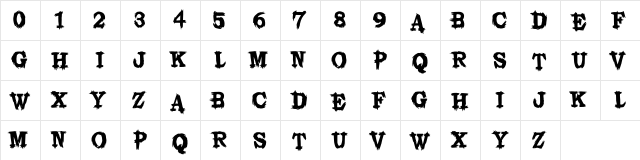
HORIZONLESS Regular
| Designer | Afterthem Studio |
Design Context for HORIZONLESS Typeface
HORIZONLESS is a composed and adaptable typeface that performs quietly and consistently across a wide range of design contexts.